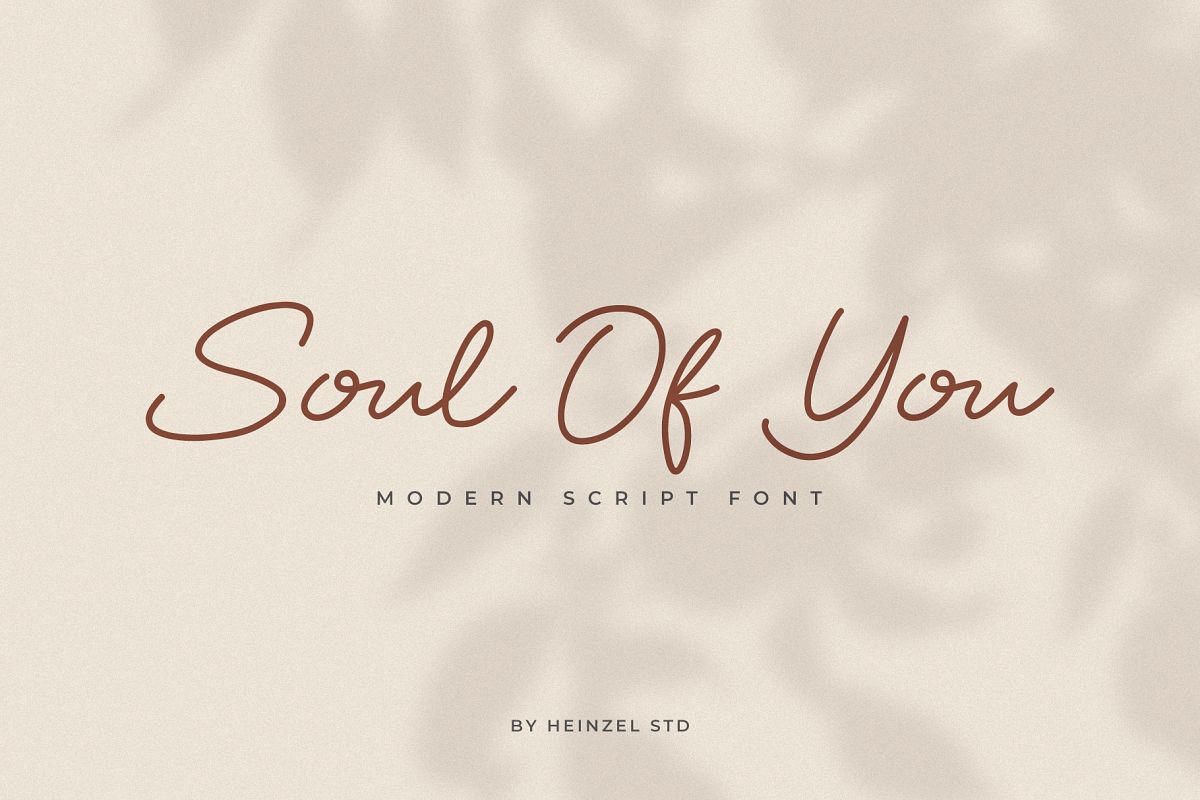
Soul Of You - Modern Script Font
Soul Of You
Soul Of You Script style - a new modern & fresh script with a handwritten and script style make this font looks elegant, natural, stylish and perfect for any awesome projects that need handwriting taste.Soul Of You would perfect for photography, watermark, social media posts, advertisements, logos & branding, invitation, product designs, label, stationery, wedding designs, product packaging, special events or anything that need handwriting taste.What's Included :